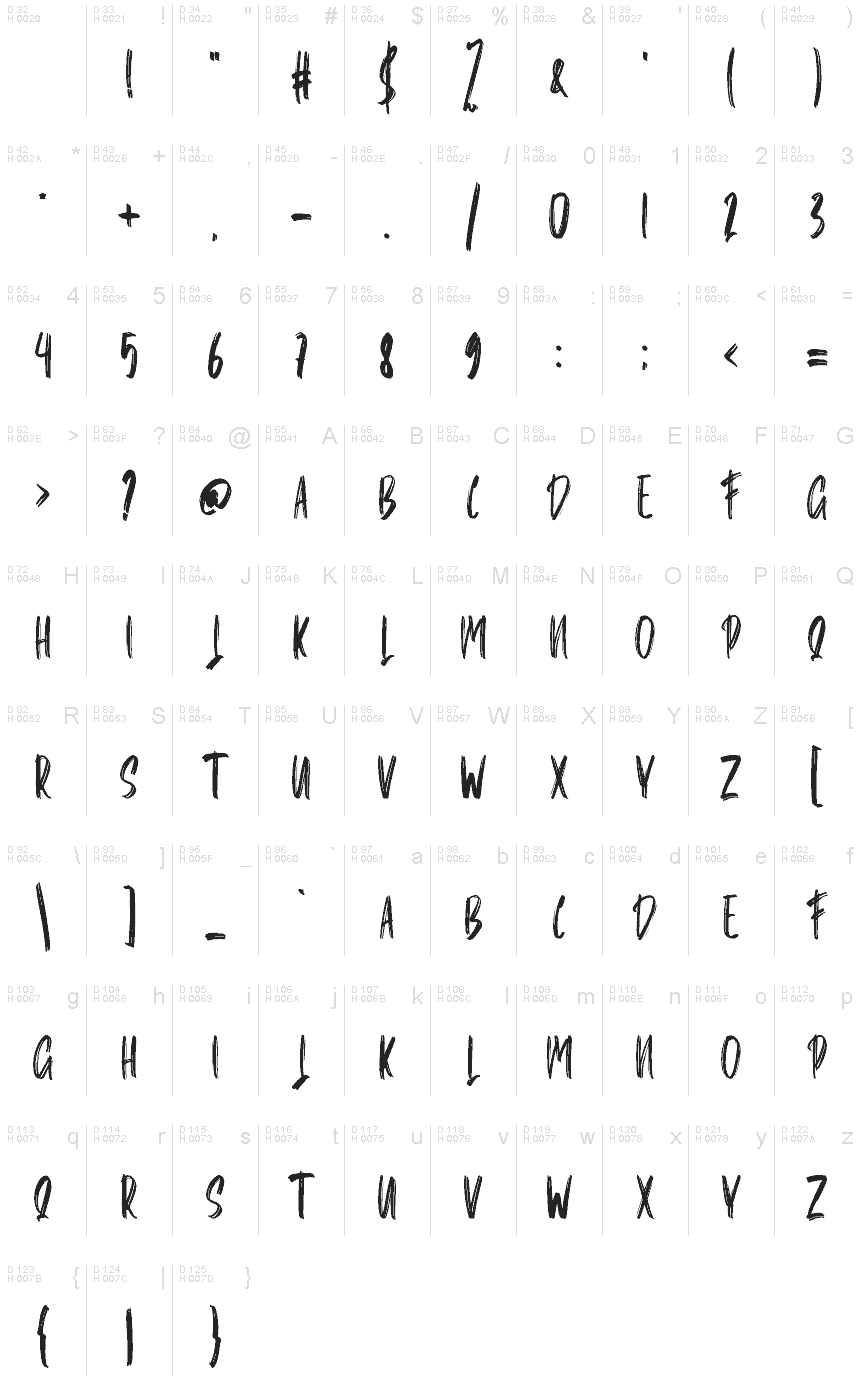
Survire
There is no such thing as bad art, only misinterpretation. But even then, there is the audience to blame. A masterpiece is not made, it is seen, and it takes an eye to realize that this font, Survire, is one.
The condensed brush script, brought to life by Skiiller Studio, screams attitude. Each letter looks like a single ink stroke, so if you are going for grunge, graffiti, punk rock, or metal/horror, this is your font.
It will get your audience’s attention just because of its striking aesthetic and edgy style, and it works perfectly for apparel designs, album artwork, and event titles.